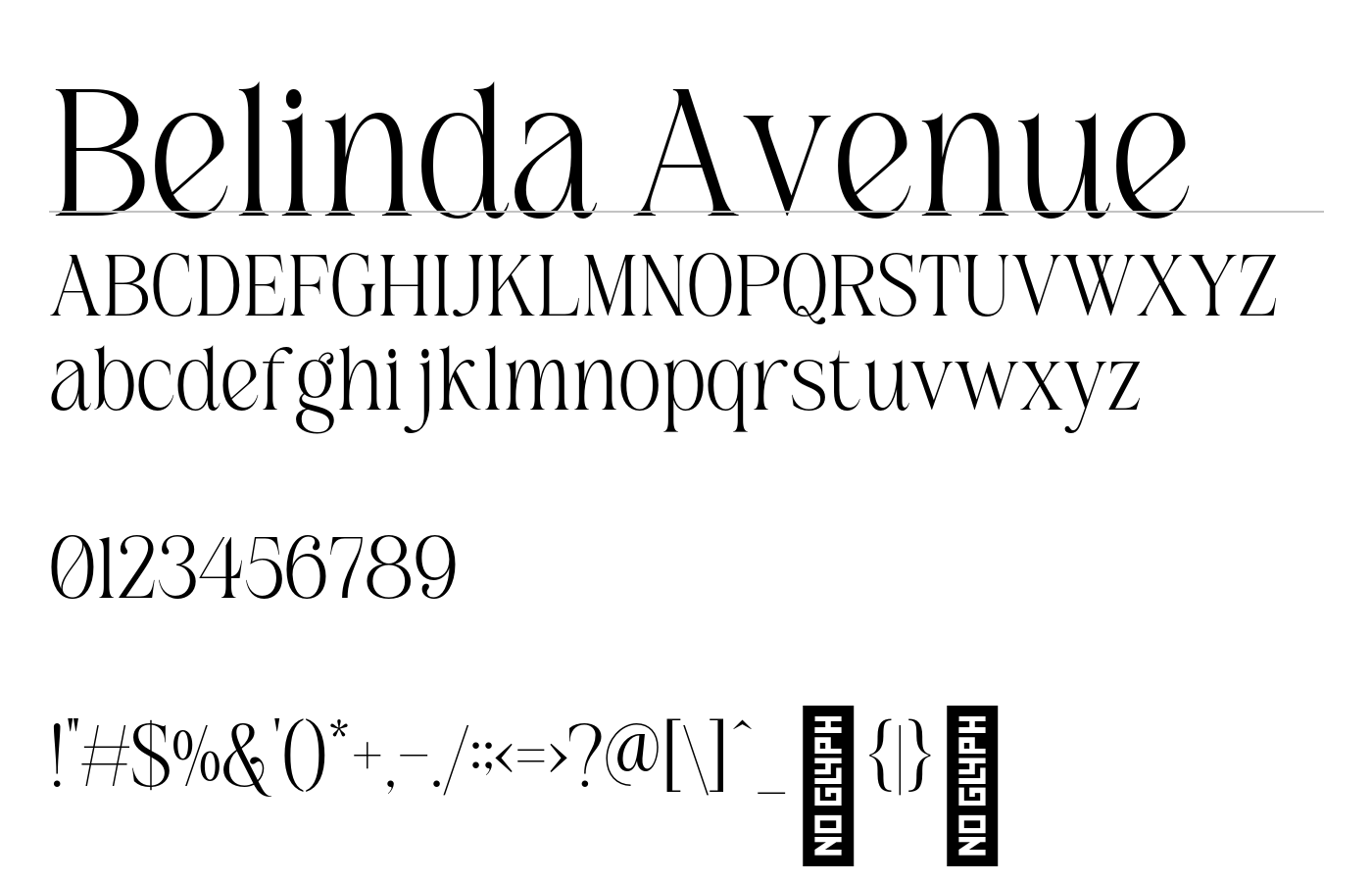
Belinda Avenue is an elegant serif font with a refined, high-contrast design featuring thin, delicate strokes paired with sharper, pointed serifs. Its tall, slender letterforms and distinctive details like the single-story 'a' and curved 'Q' tail give it a sophisticated, modern vibe suited for luxury branding, fashion editorials, or upscale packaging. This font works beautifully for headlines and logos where a stylish, graceful impression is desired.
Belinda Avenue Font
About Belinda Avenue Font
| Font family | Belinda Avenue Font |
| Designer | Brandsemut |